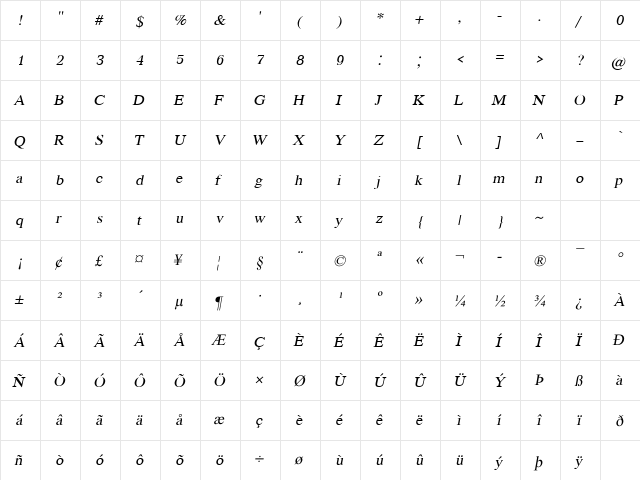
KodchiangUPC Italic
Design Context for KodchiangUPC Typeface
KodchiangUPC takes a measured approach to typography — its balanced proportions and neutral character make it a reliable workhorse for both digital and print work. The slanted form adds forward momentum and visual energy.
Pro Tip: Try KodchiangUPC for annotation and caption copy alongside an upright companion — the contrast in angle creates a dynamic but ordered typographic system.